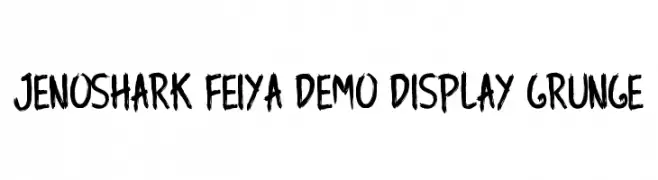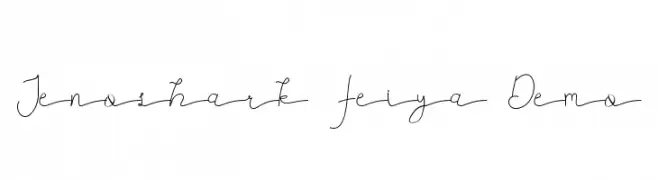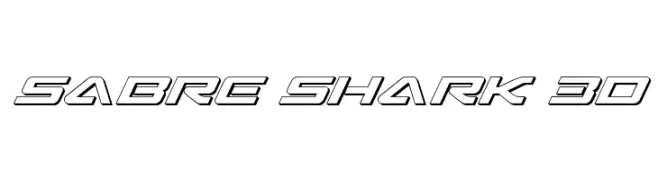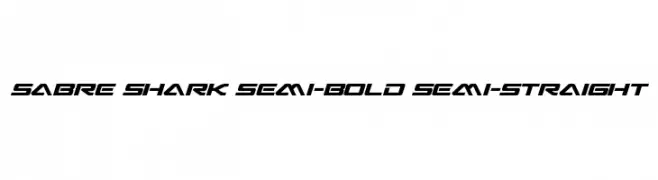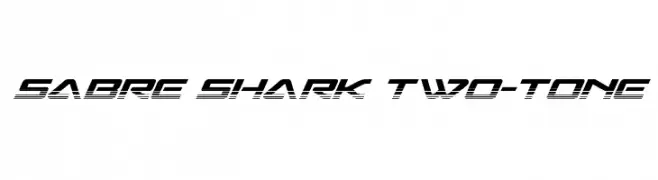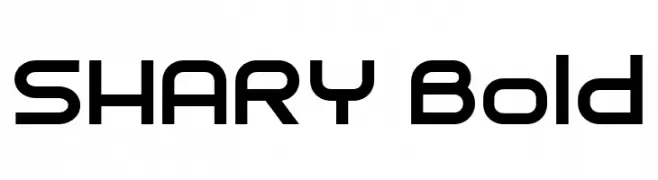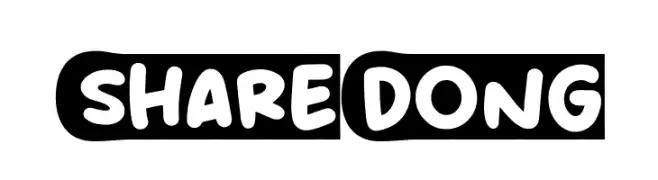
A bold, modern font with a geometric and angular design.
A bold, playful handwritten font with a casual and friendly style.
A bold, angular font with a futuristic and dynamic design.
A bold, futuristic font with a dynamic two-tone effect and slanted, angular characters.
A bold, futuristic 3D font with outlined, geometric characters.
A playful, bold font with rounded, bubble-like characters.
An elegant script font with fluid, cursive strokes and artistic flourishes.
A classic script font with elegant, flowing curves and a sophisticated appearance.
A bold, grunge-style font with a hand-drawn, distressed appearance.
A graceful script font with elegant, flowing strokes and a modern calligraphic style.